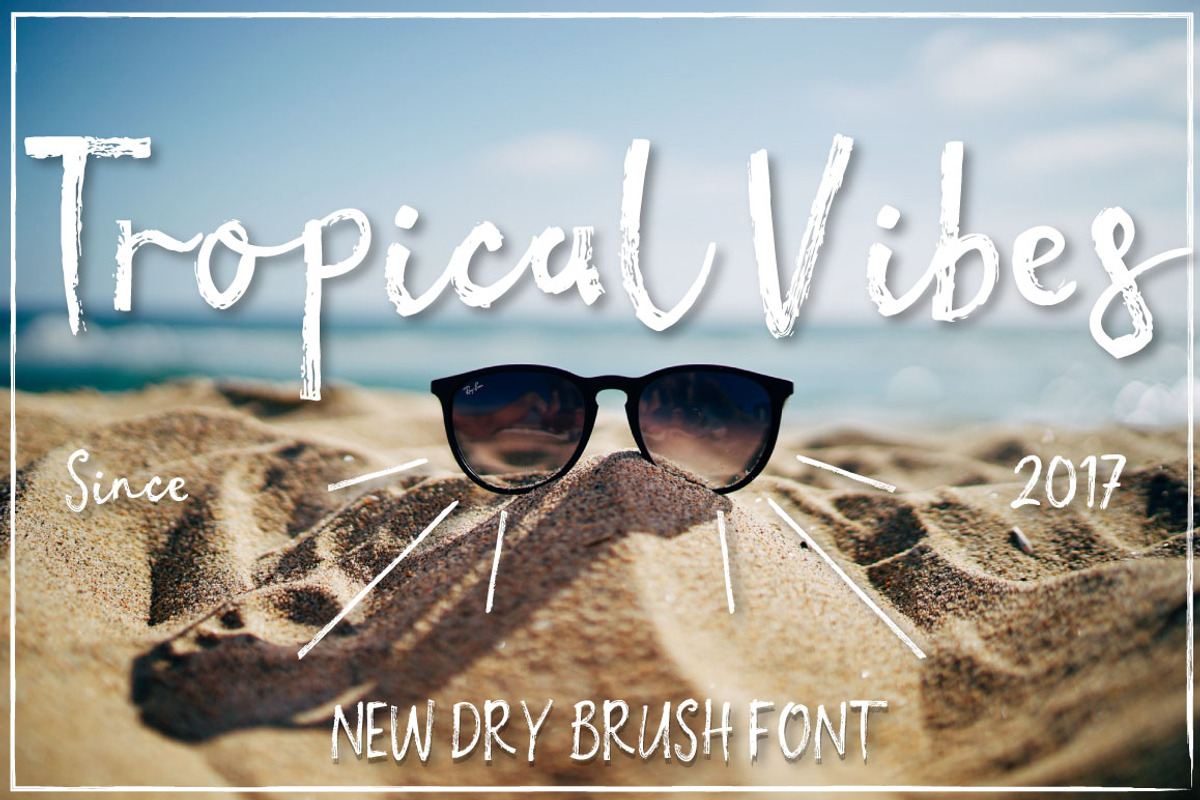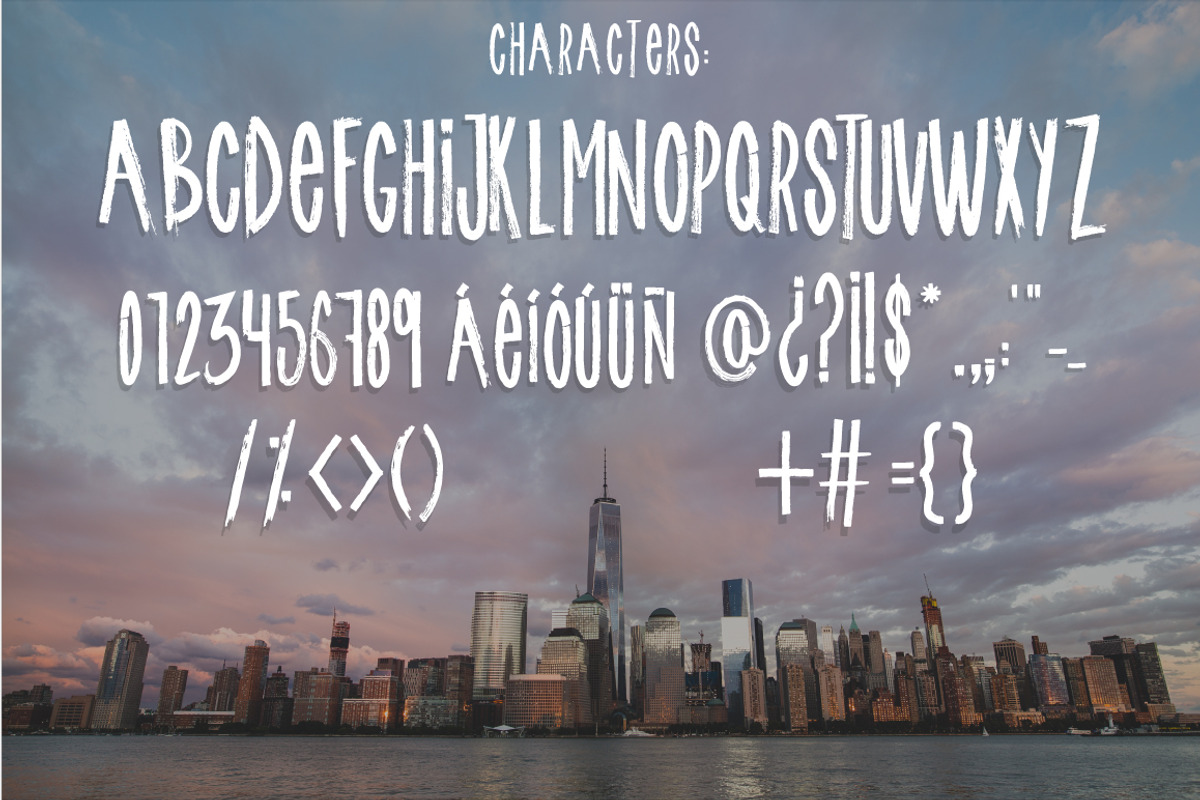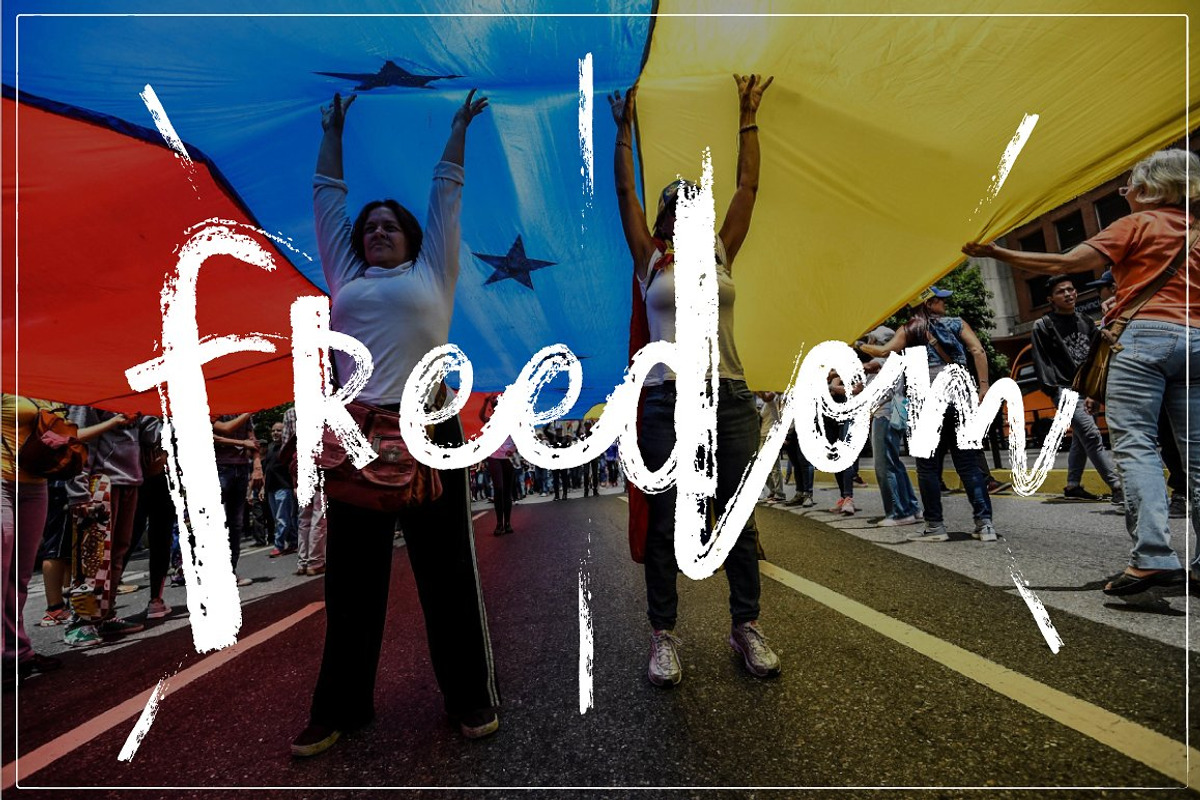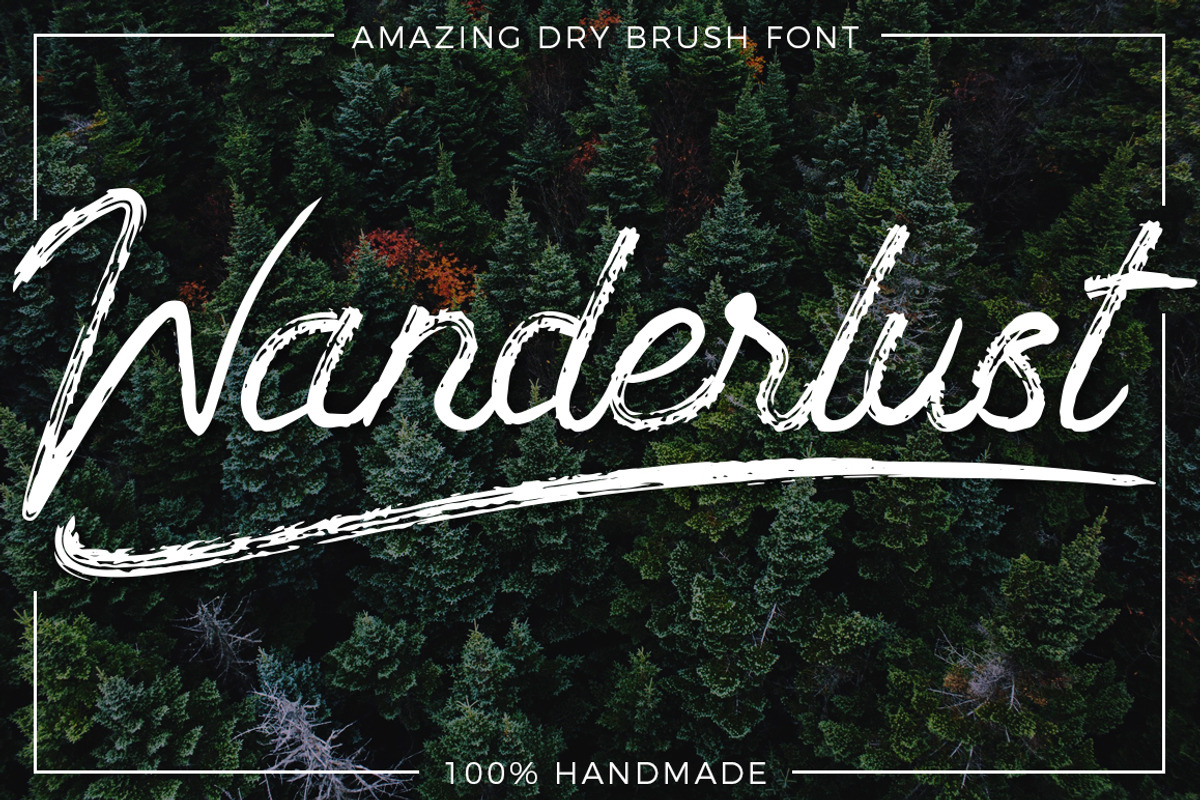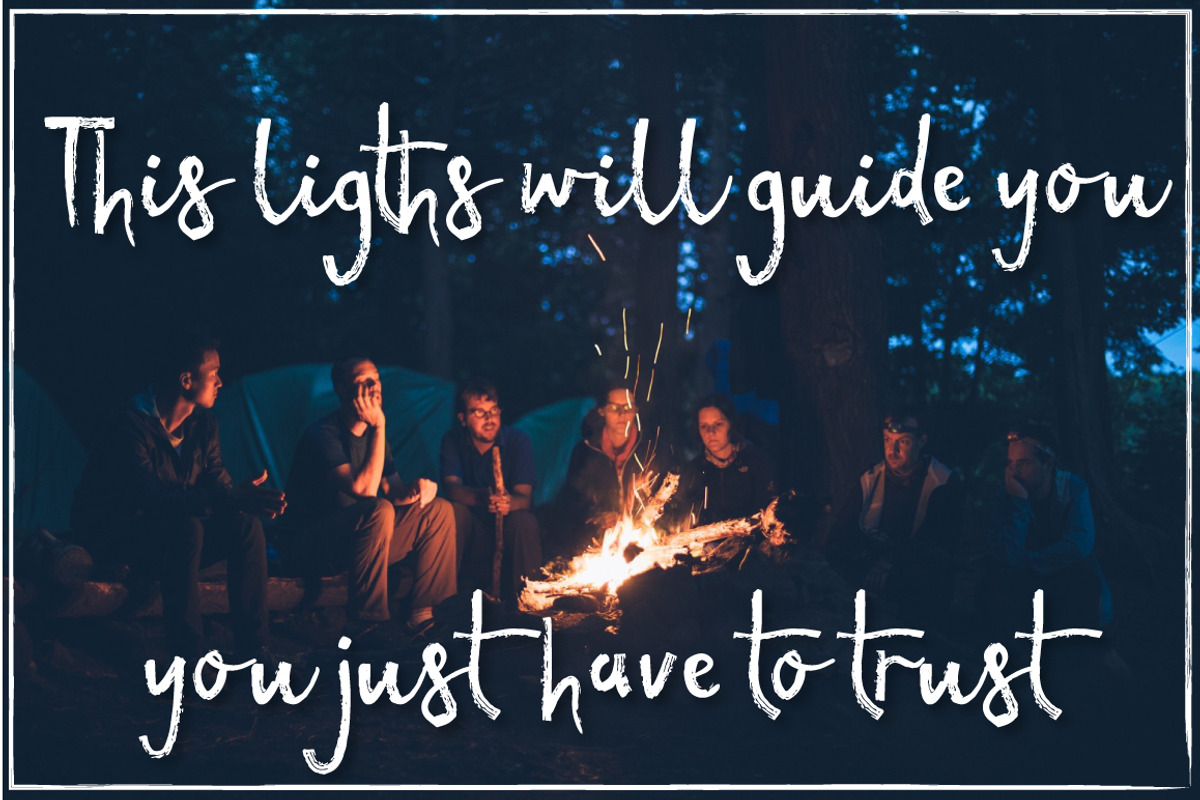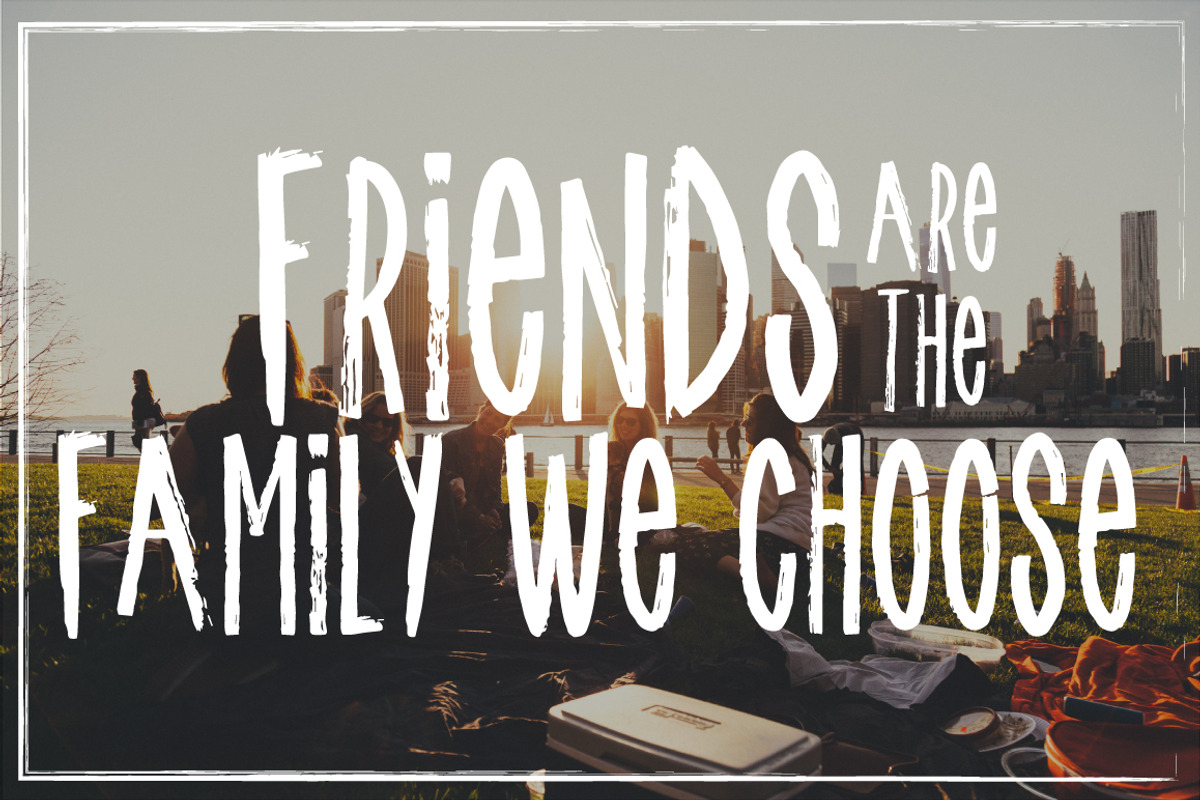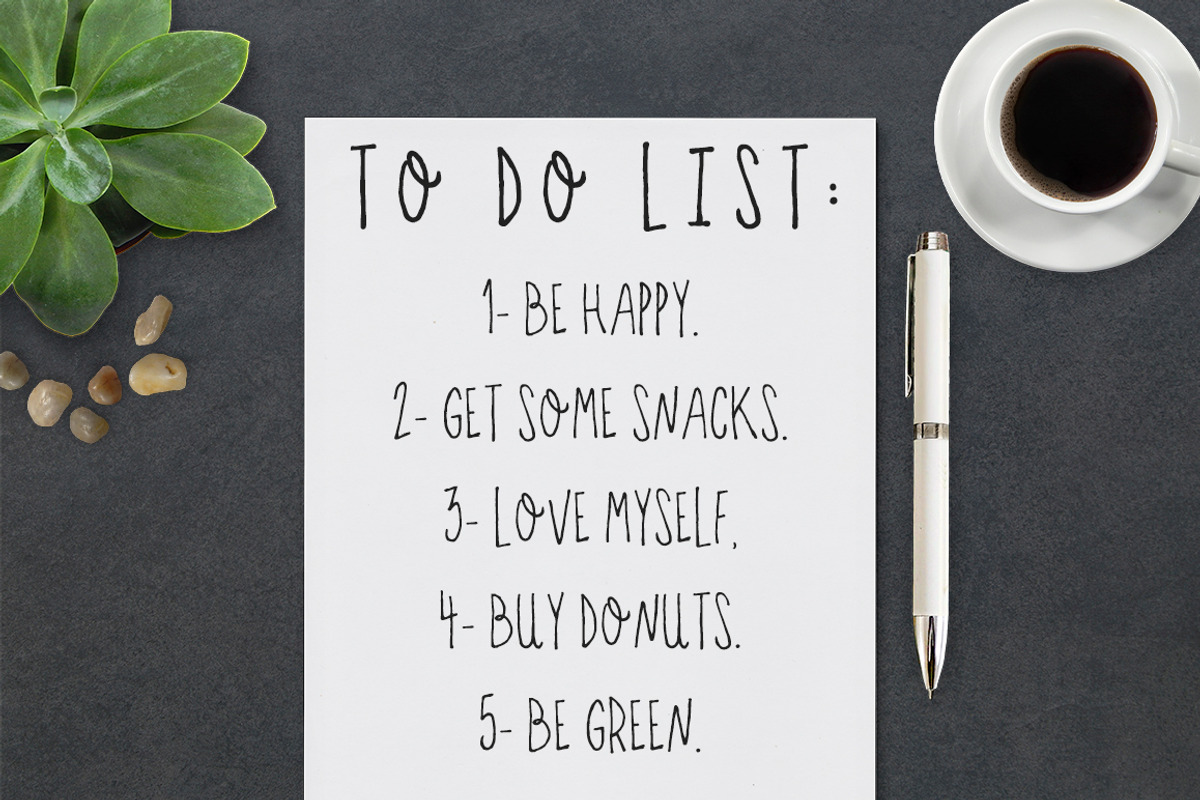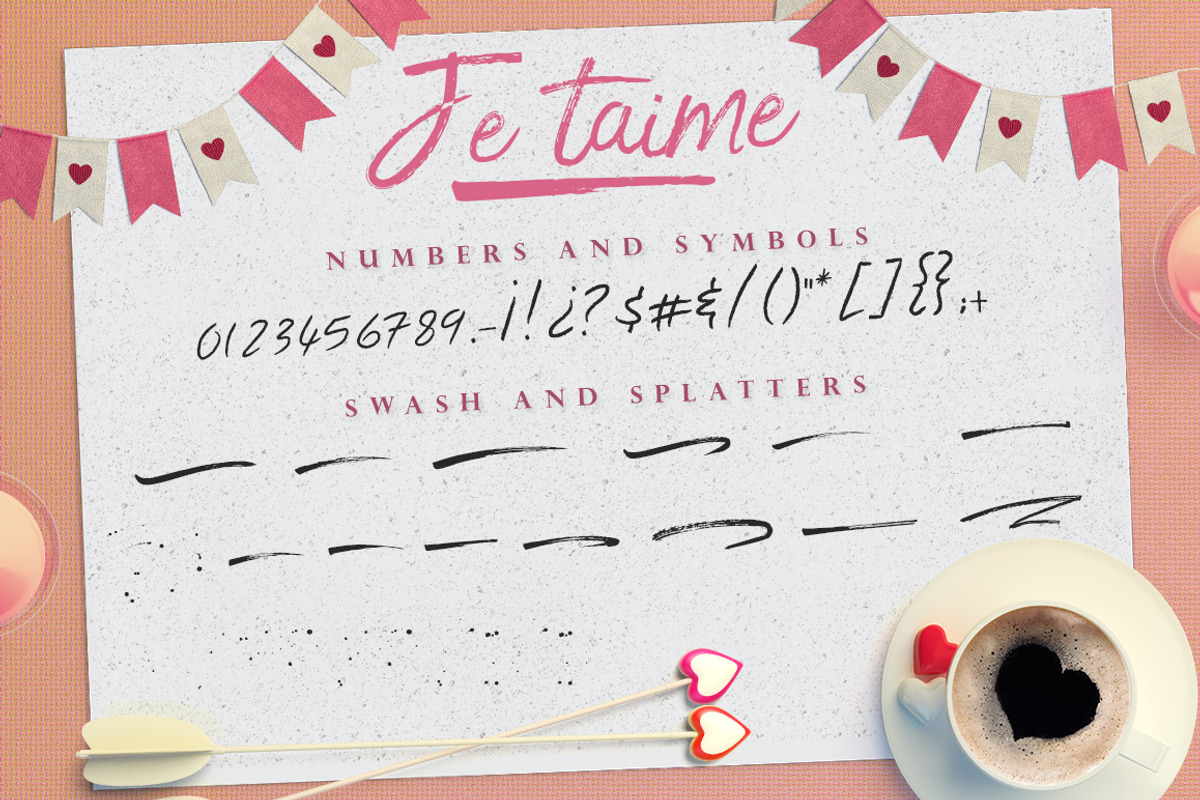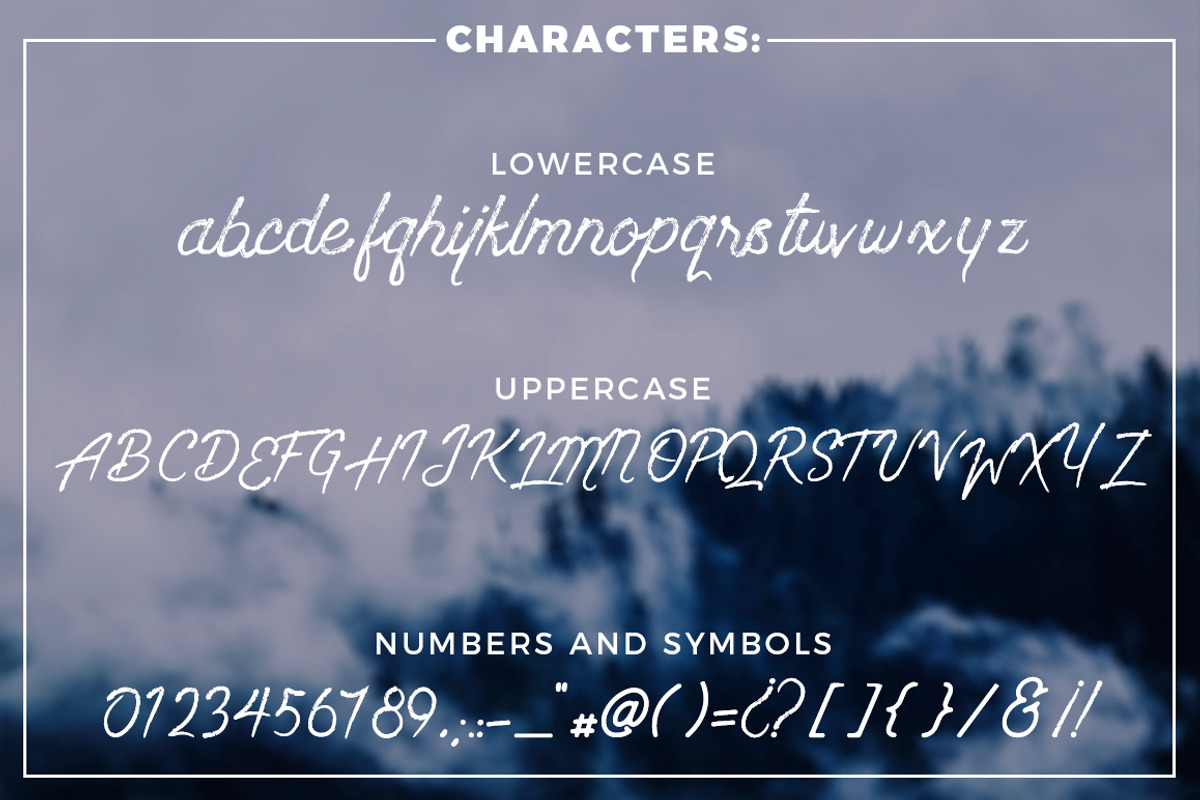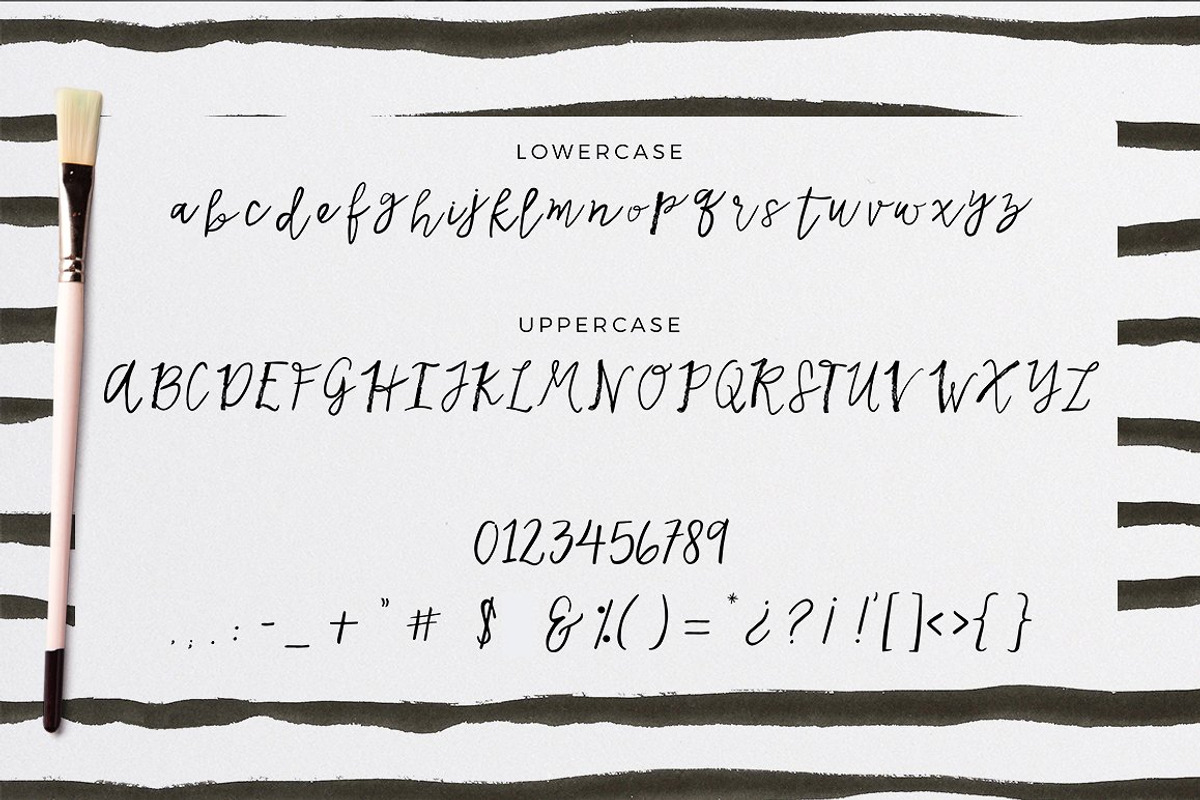
- 100% handmade
- They all have latin characters, ¡Qué viva el poder de la Ñ!
- Perfect for pairing
- Create the most amazing logos, branding, invitations, merchandise, etc
IN THIS BUNDLE YOU'LL FIND:
- Hi Honey: https://creativemarket.com/andreadop/1767230-Hi-Honey-Dry-Brush-font%21
- Je Taime: https://creativemarket.com/andreadop/1702266-Je-Taime-handmade-font-BONUS%21%21
- Wanderlust: https://creativemarket.com/andreadop/1581213-Wanderlust-Dry-brush-font
- Tropical Vibes: https://creativemarket.com/andreadop/1573715-Tropical-vibes-Dry-brush-font
- New York: https://creativemarket.com/andreadop/1415876-New-York-Font%21
- Kata: https://creativemarket.com/andreadop/1476058-Kata%21-cursive-handmade-font
- Venezuela: https://creativemarket.com/andreadop/1459913-Venezuela-Dry-brush-font
- Aura: https://creativemarket.com/andreadop/1420409-Aura-font-duo%21
- Sketchy: https://creativemarket.com/andreadop/1408626-Sketchy-handmade-font-trio%21
- Letras Feas: https://creativemarket.com/andreadop/1398621-Letras-feas-handmade-font-duo%21
- Esmeralda: https://creativemarket.com/andreadop/1396320-Esmeralda-handmade-font-duo%21